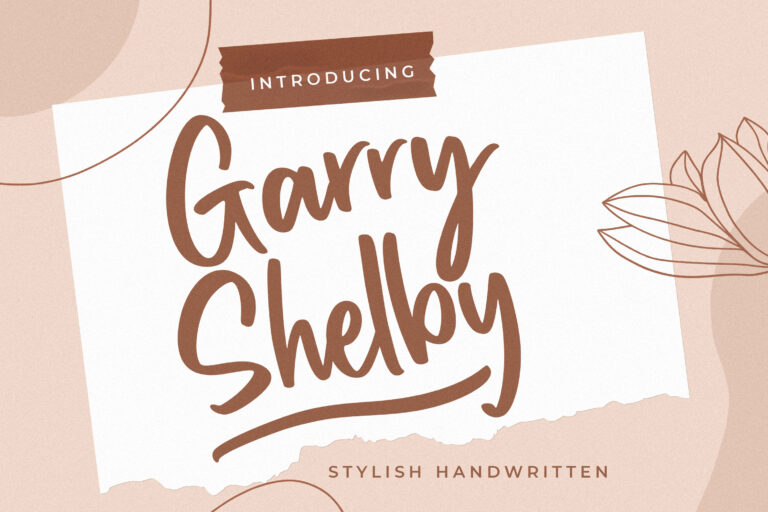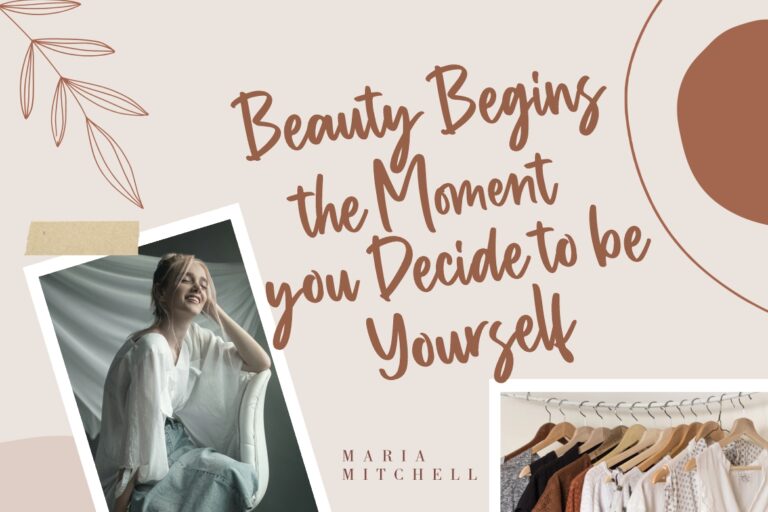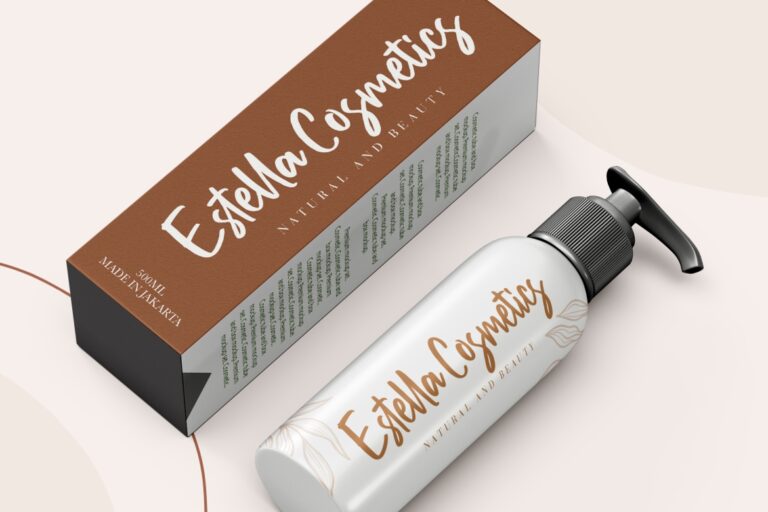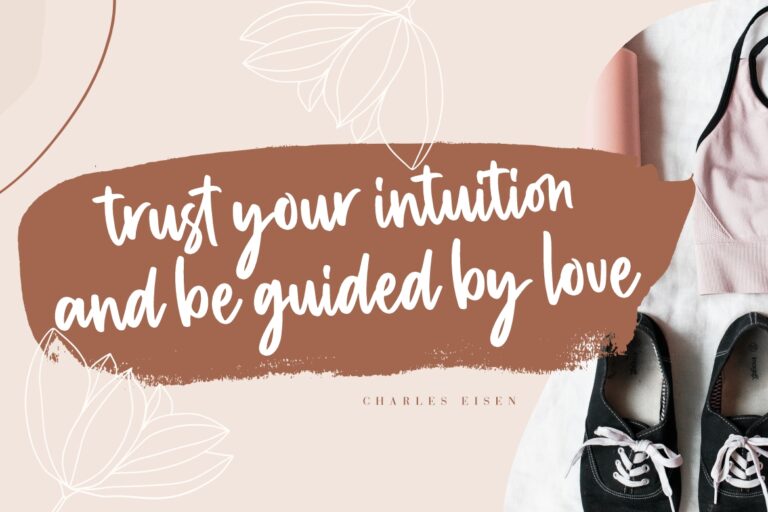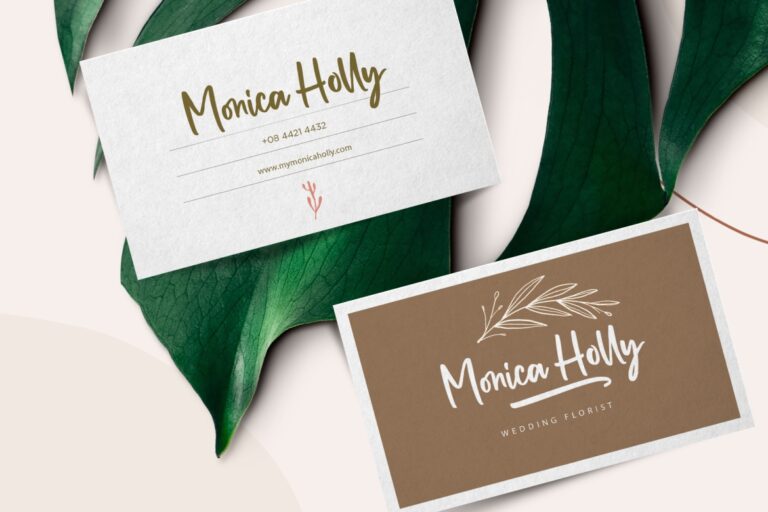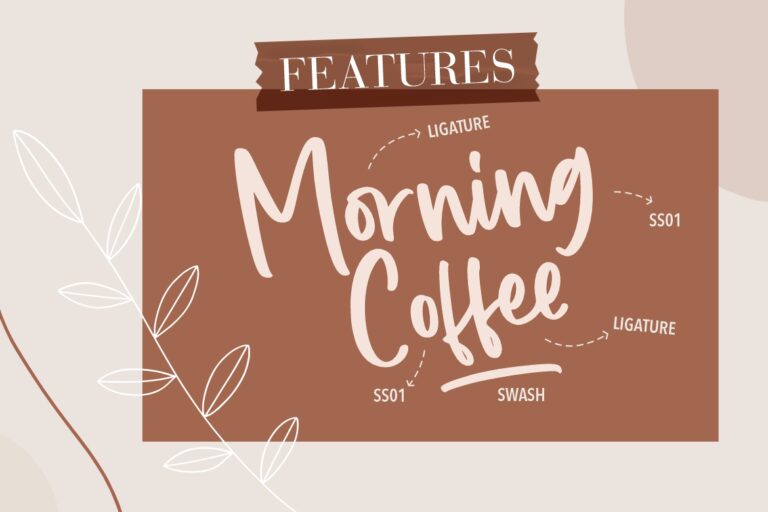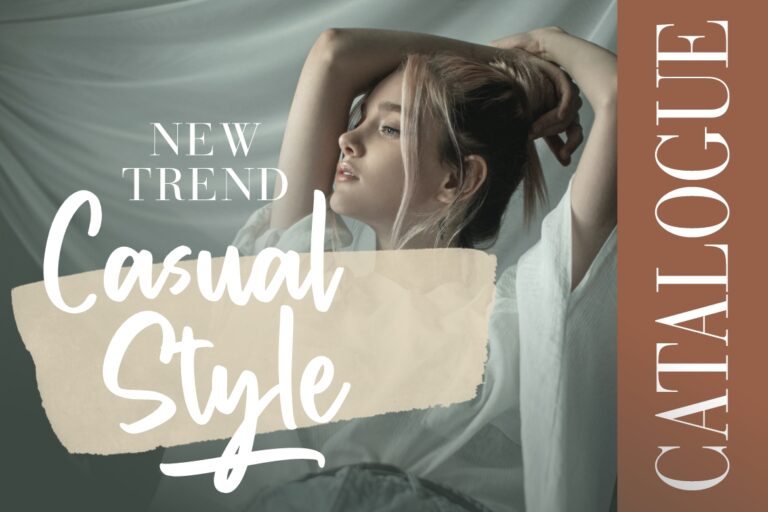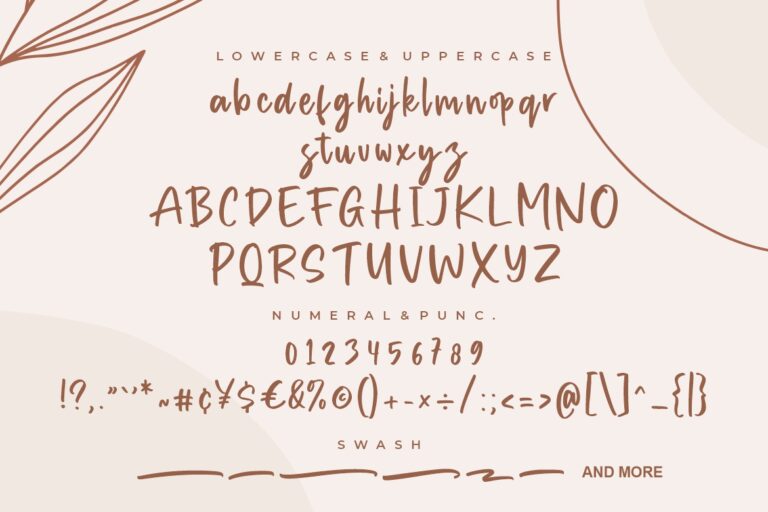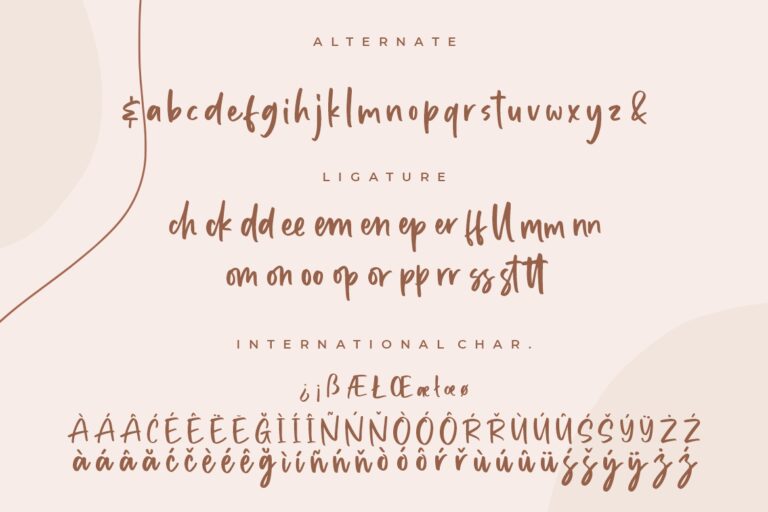
Garry Shelby Stylish Handwritten
Garry Shelby is casual and stylish handwritten font that make your latest project will looks awesome.
Garry Shelby would perfect for photography, watermark, social media posts, advertisements, logos & branding, invitation, product designs, label, stationery, wedding designs, product packaging, special events or anything that need handwriting taste.
- Ligature, Alternate & Swashes